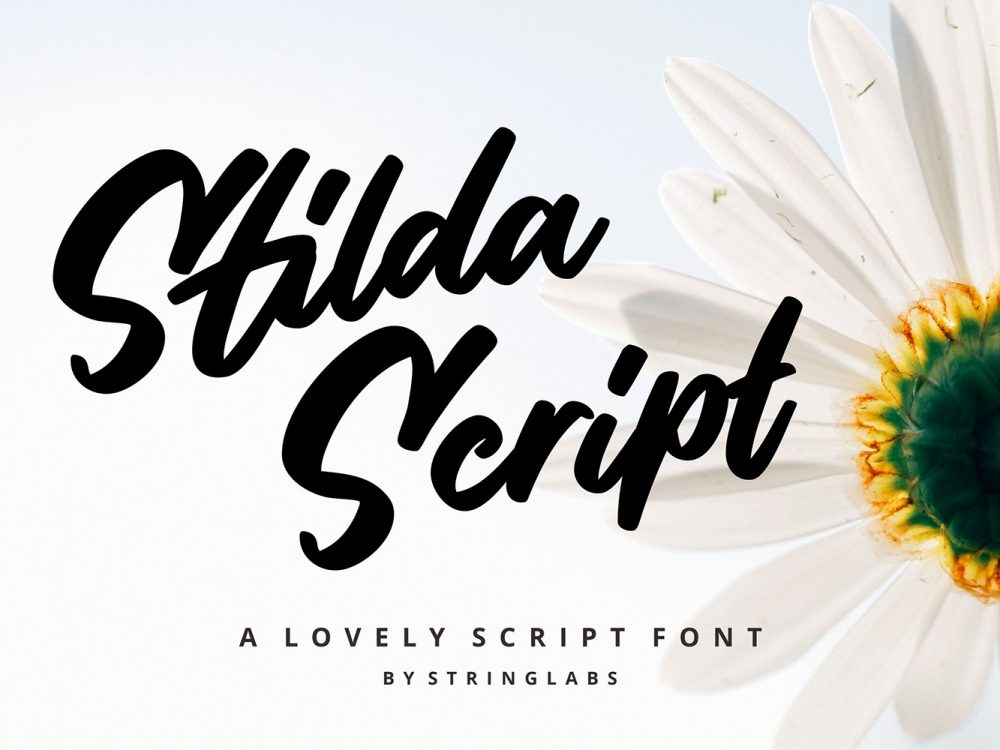
Stilda Free Font
Stilda Free Font is a stylish bold handwritten font that mimics a brush and has an elegant style. This font will help you create unique design projects. Use this font to create memorable posters, wedding invitations, cards, branding, flyers, and more. Improve the quality and increase the popularity of your design projects by using this font. If you like it don’t forget to check out the full version.